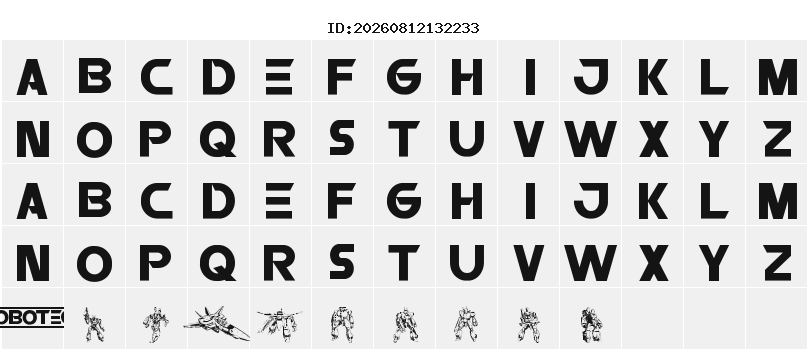
• Font Name: RobAtech
• Designer: High-Logic - Erwin Denissen 1999
• Manufacturer: High-Logic
About RobAtech.ttf
RobAtech.ttf is a modern, elegant sans-serif font designed for ultimate readability and visual harmony. Perfect for branding, headlines, web design, and print materials.